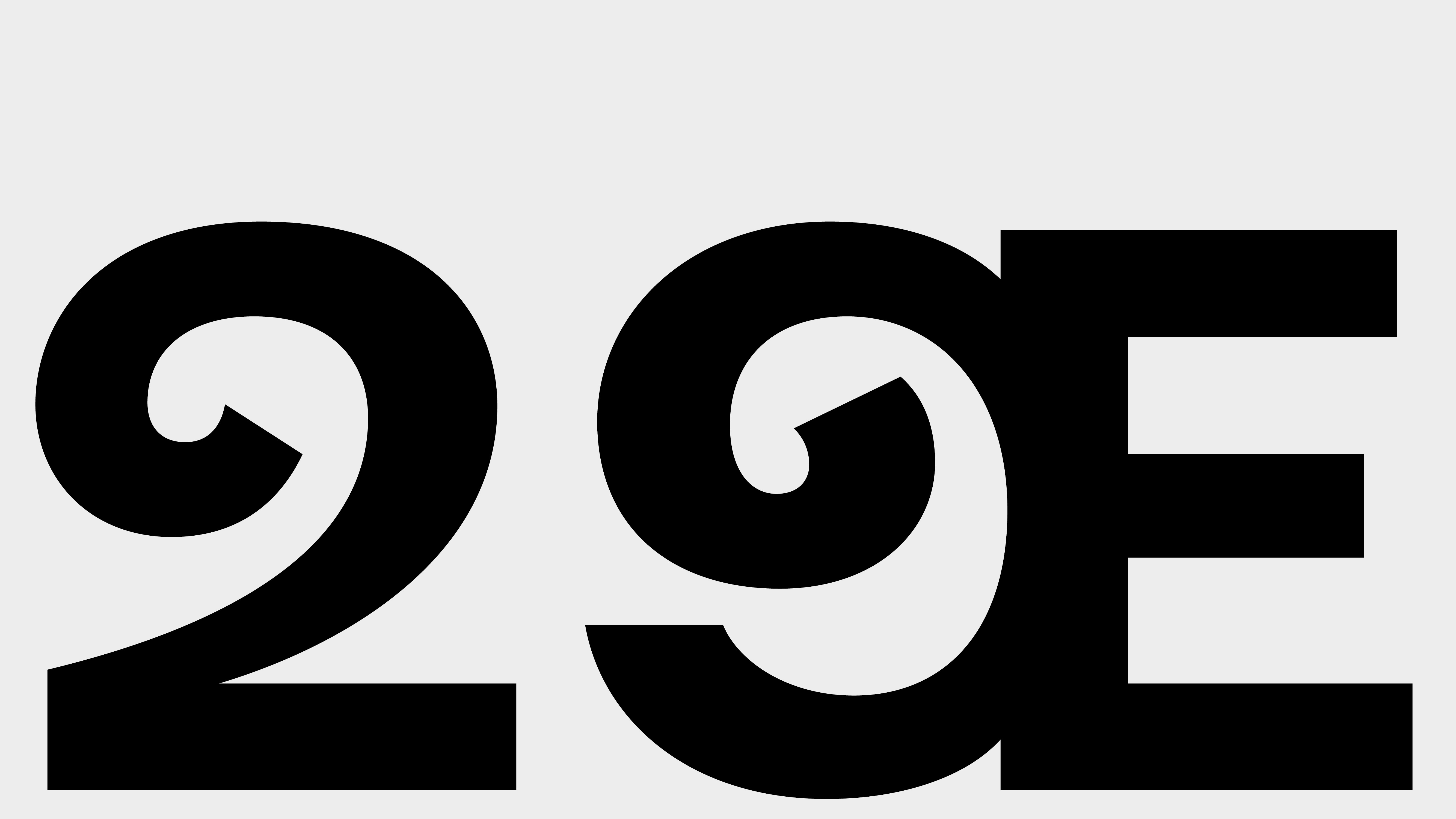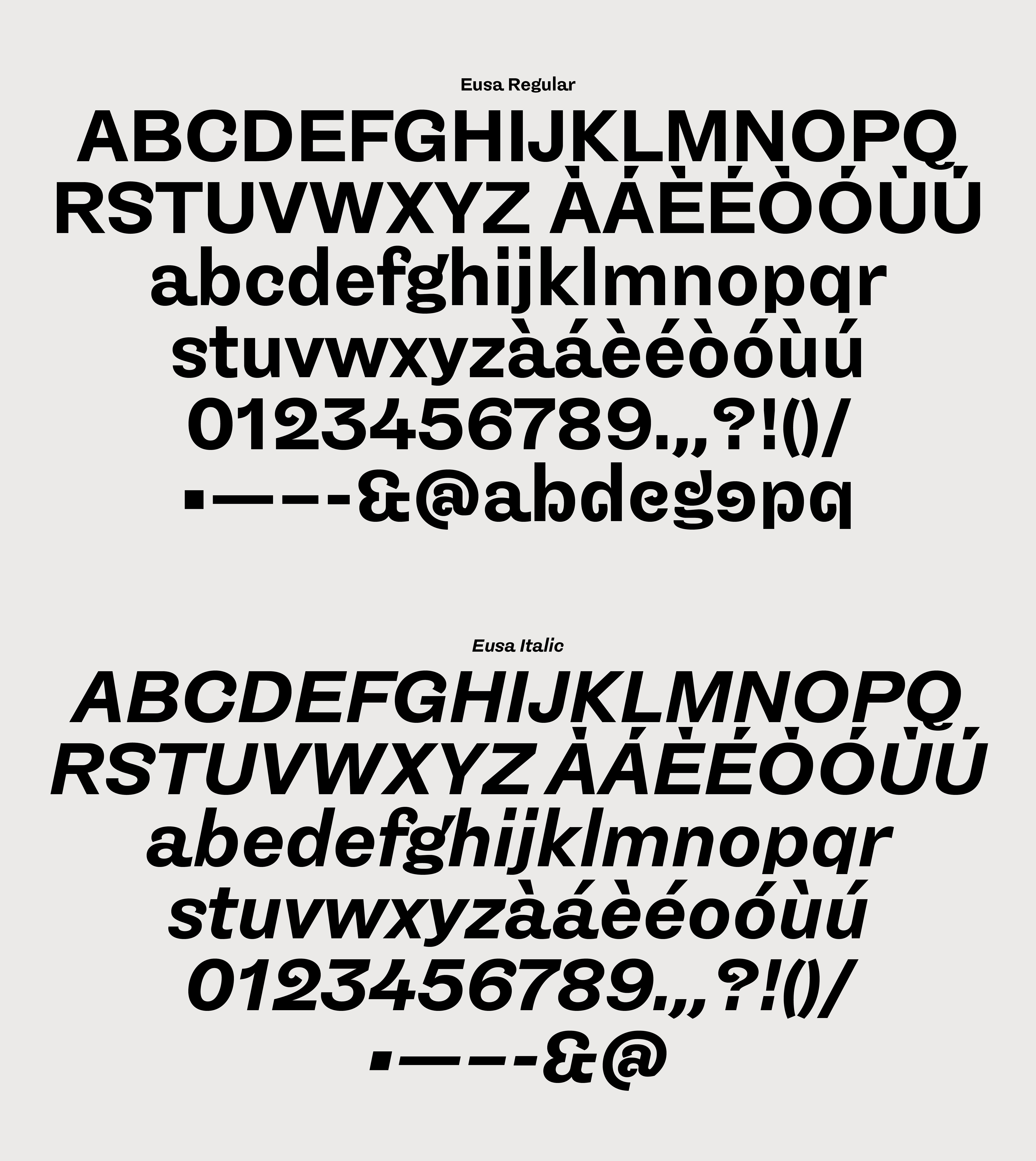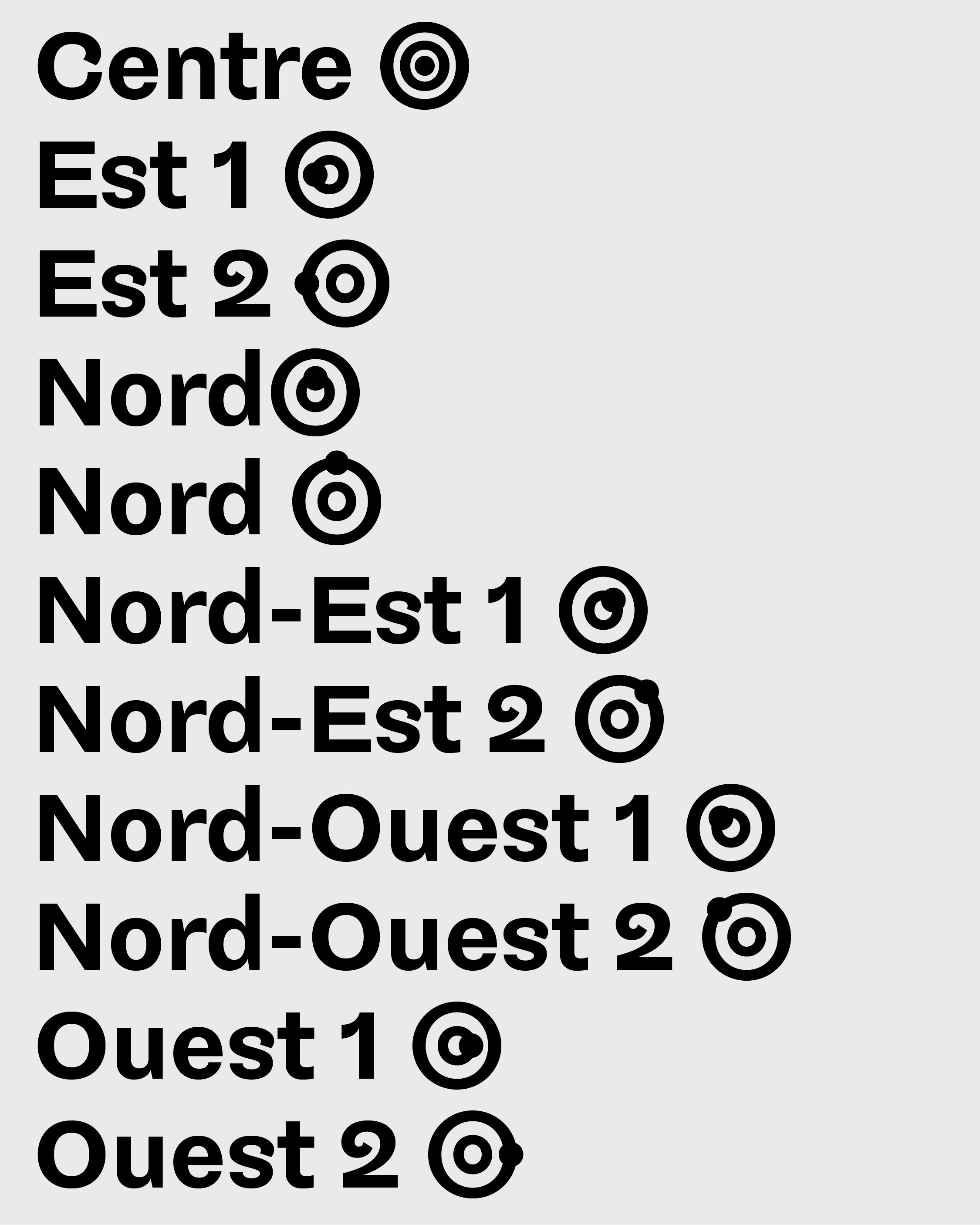
Eusa Typeface
Eusa (Ouessant in Breton) is a typeface available in three versions, designed as part of the tourist and artistic signage system for the island of Ouessant (France). Its design is inspired by the island’s landscapes, evoking the wind, moorland, and sea. The regular version is intended to be engraved on village name signs; the alternate version allows locals to create their own signs; and the italic version is designed for communication materials. The first signs were installed in May 2024.